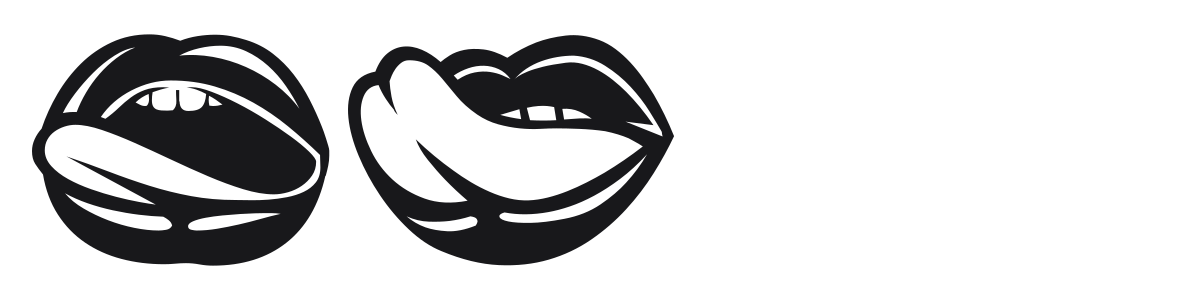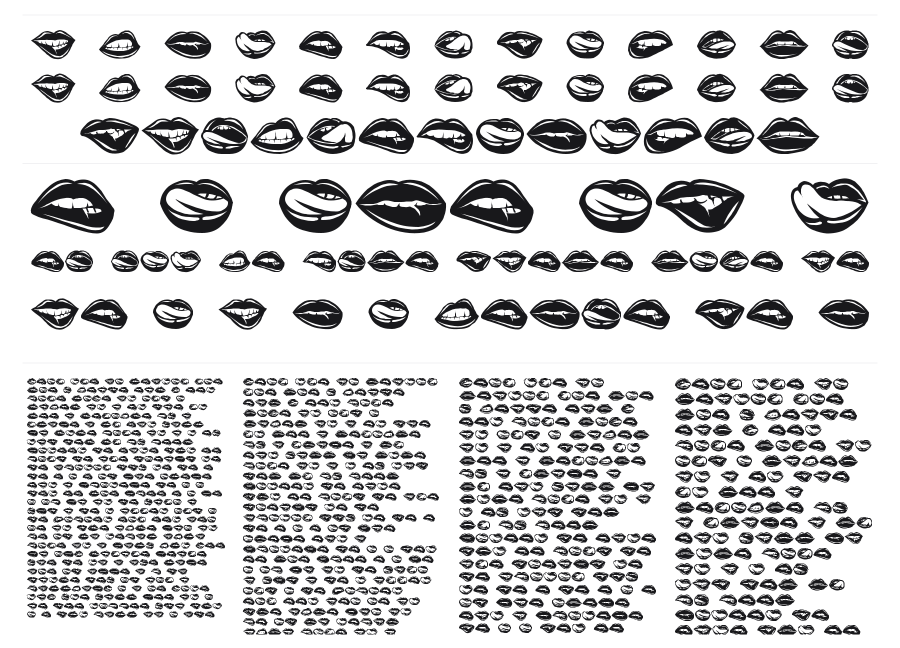
Mund
Mund is a dingbat font made entirely of lip and mouth illustrations in bold black-and-white silhouette style. Each character is a different expressive mouth pose, drawn with a graphic pop-art sensibility. It works as a pattern element, a decorative border, or a punchy accent in beauty and fashion contexts.